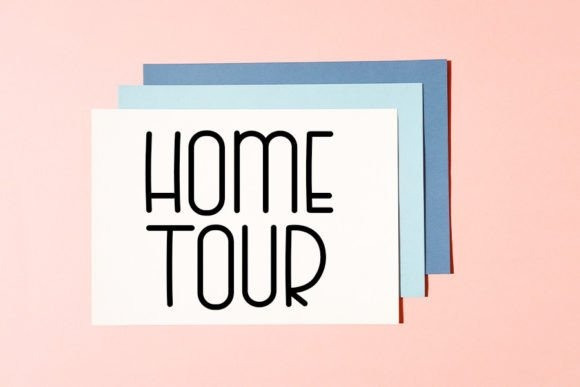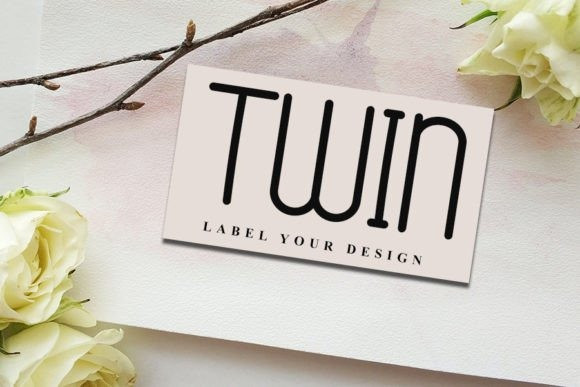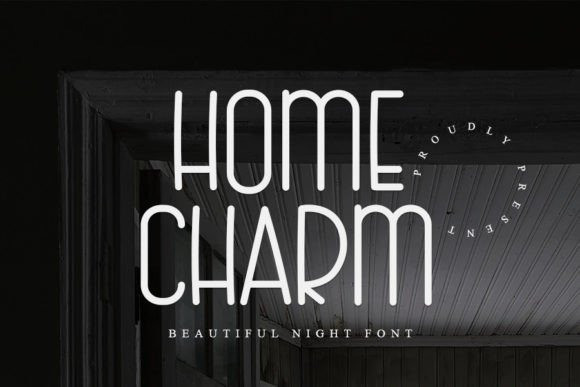
Home Charm Font
Home Charm Font is a trendy handwritten font with a contemporary atmosphere and impeccable form, inspired by timeless classic calligraphy. It will add elegance and class to any of your design projects.